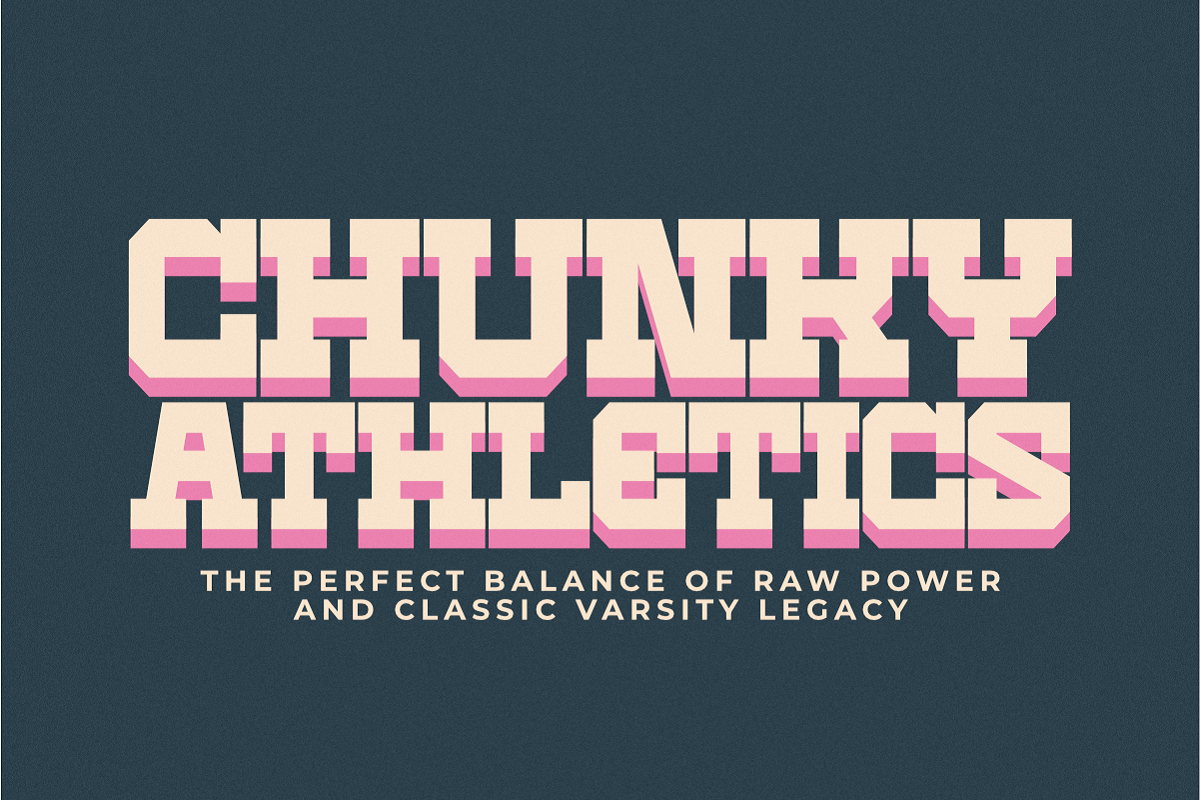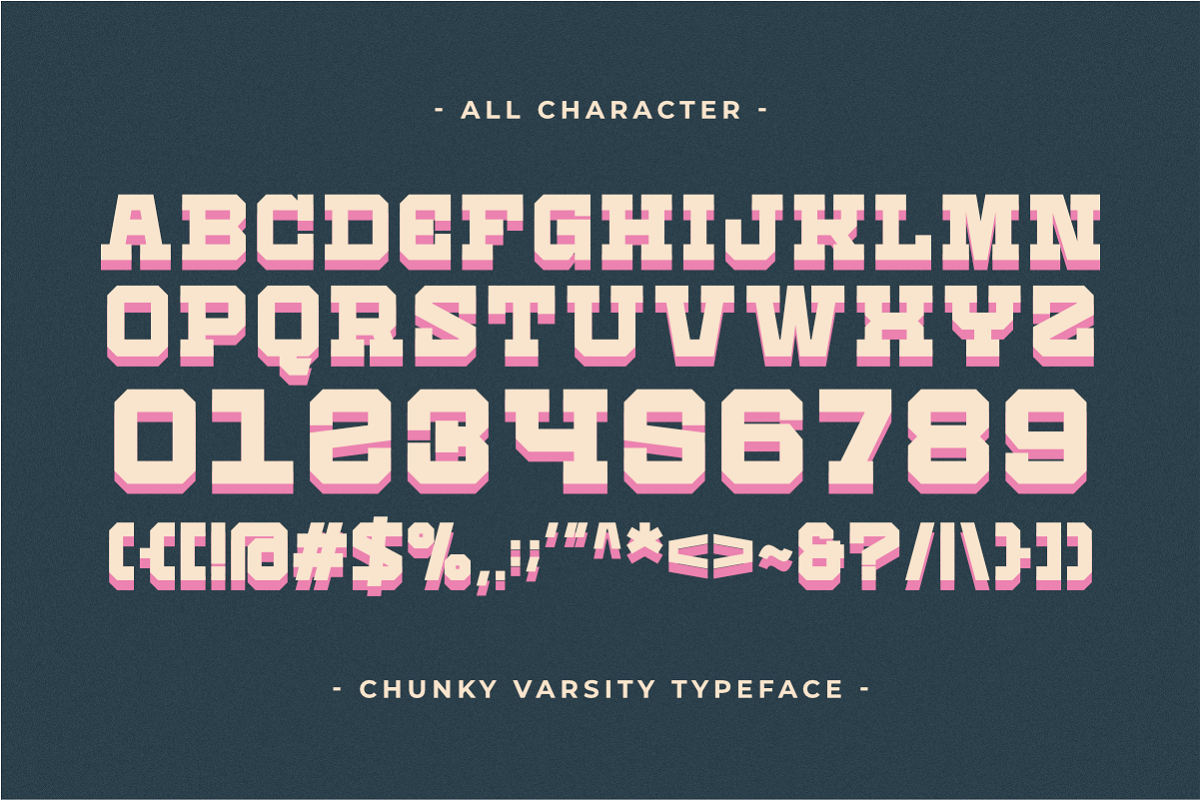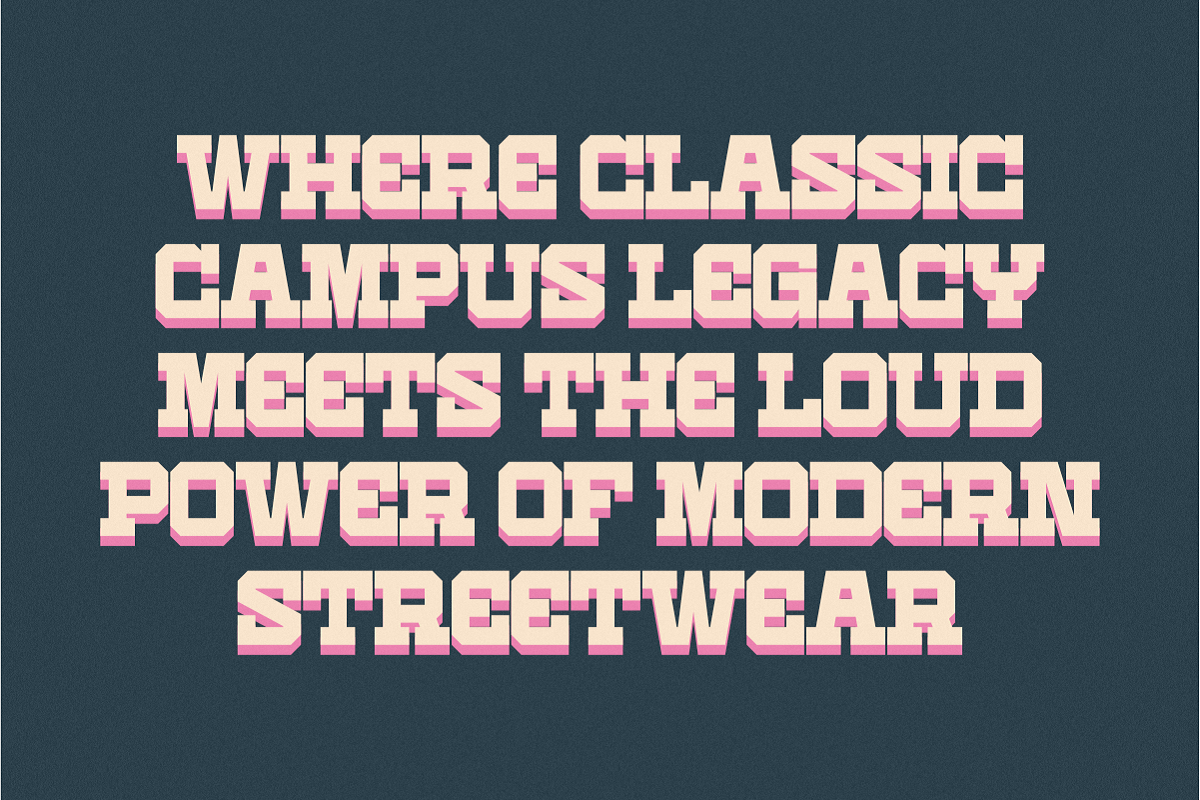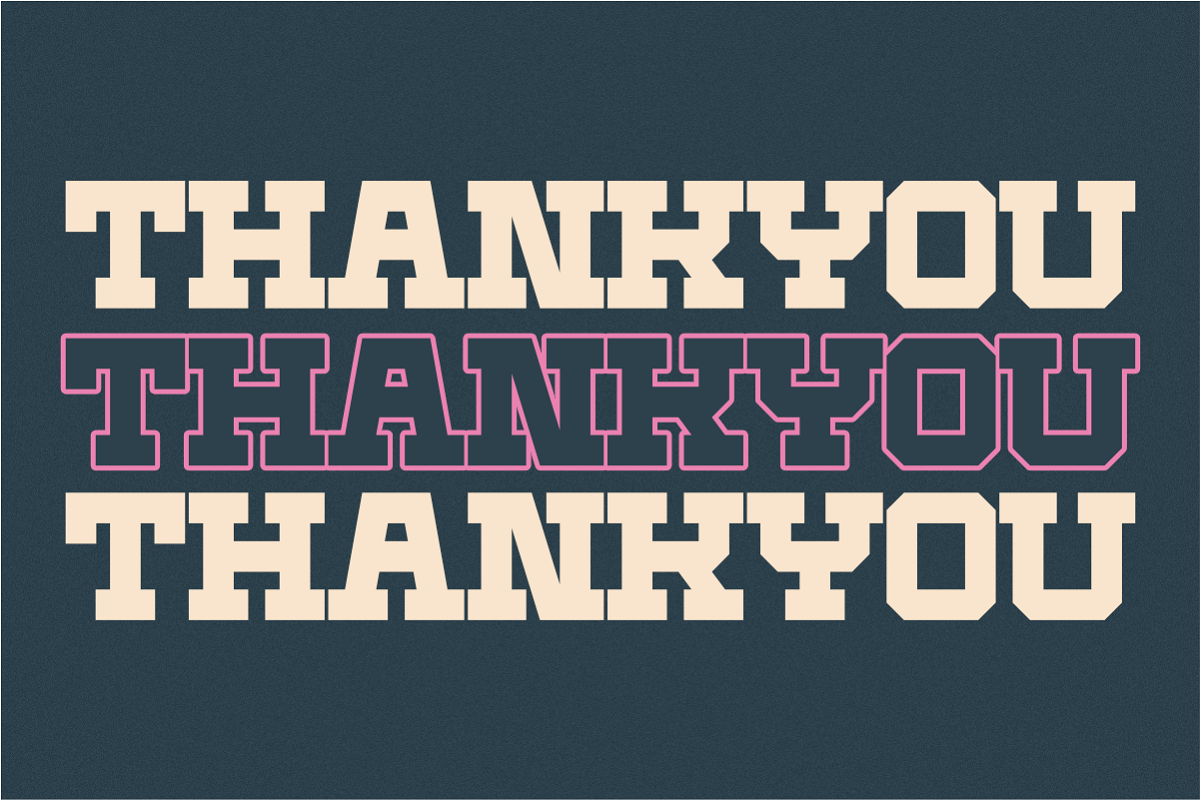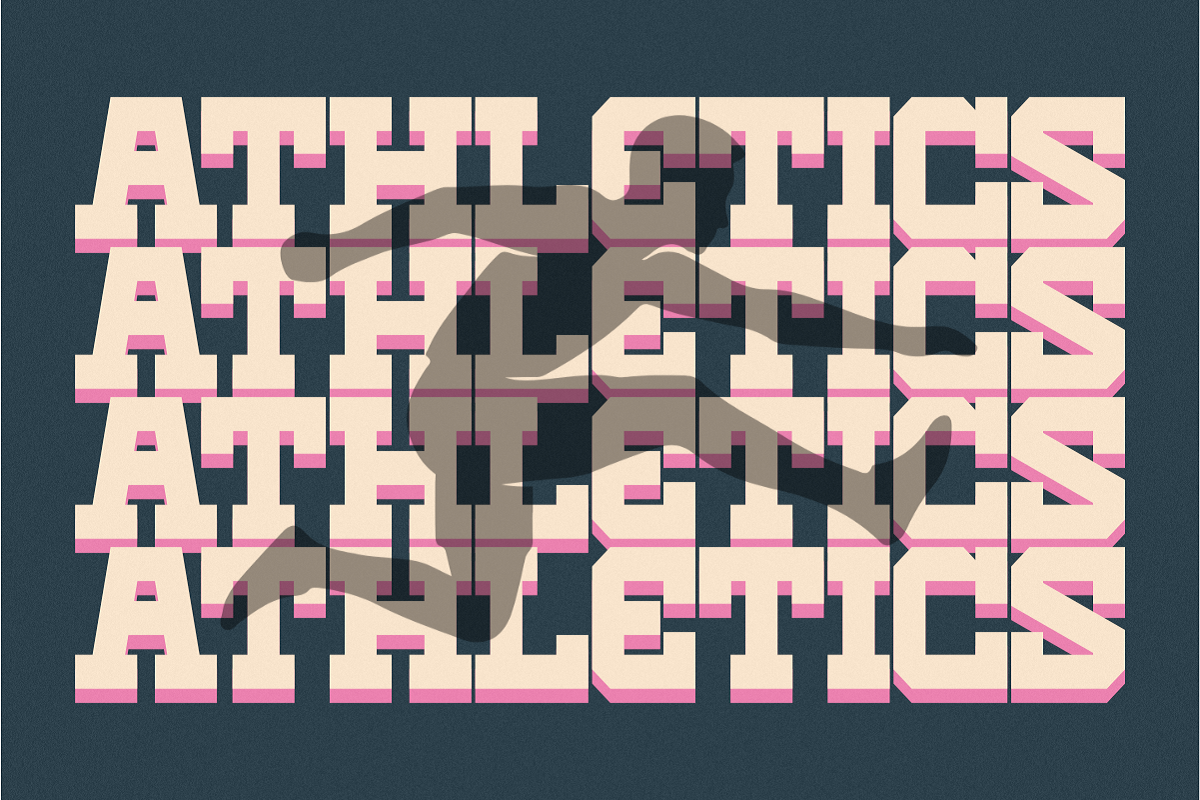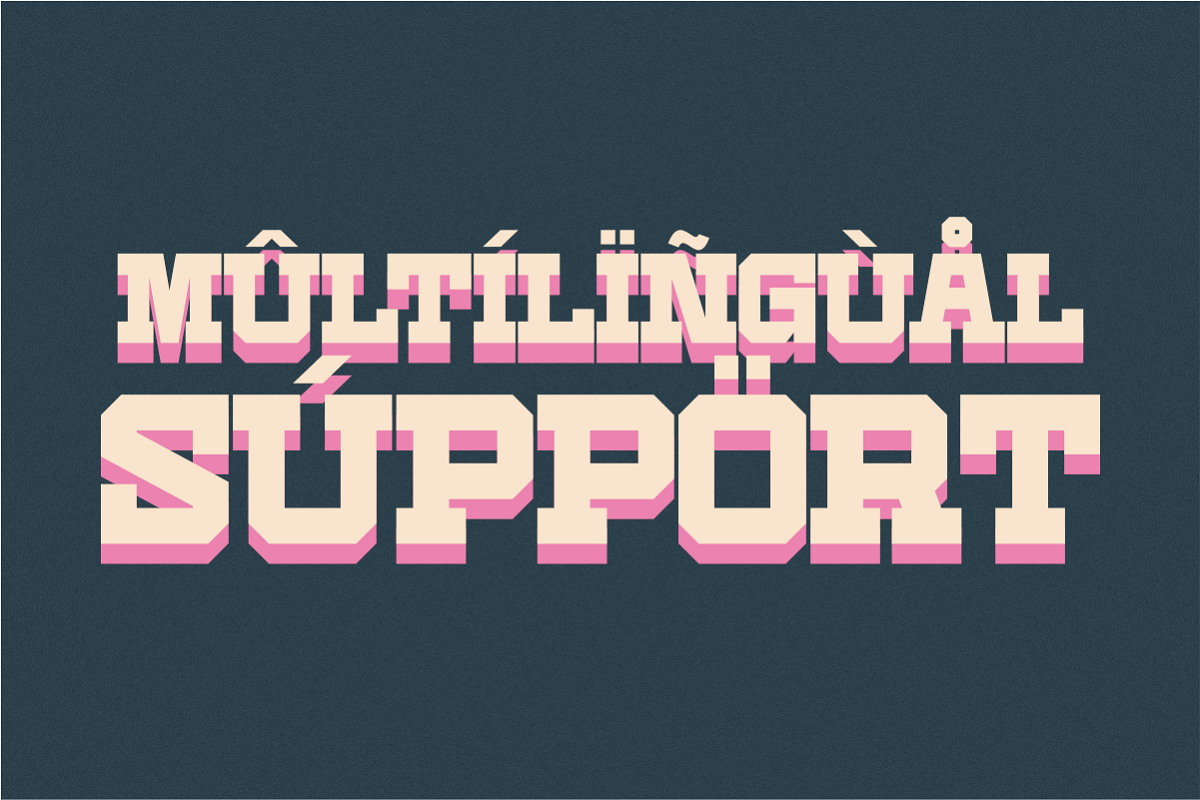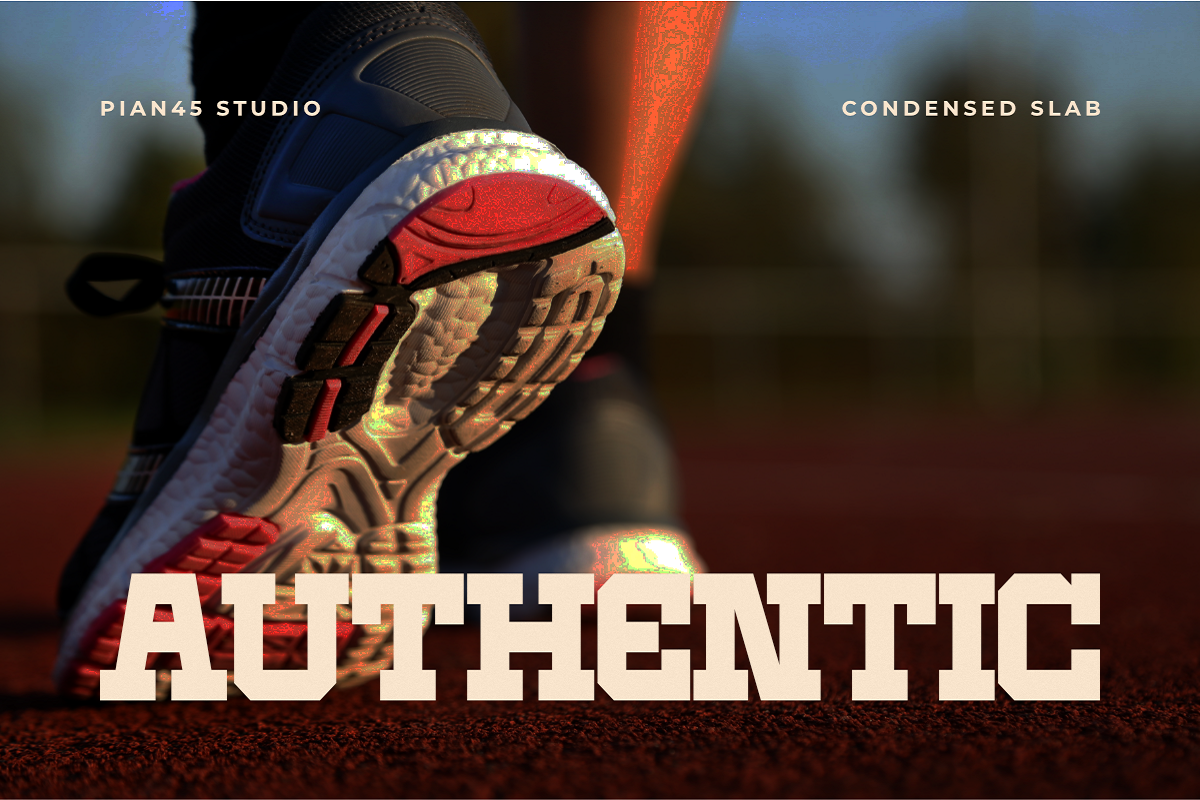
Chunky Varsity - Condensed Slab
Chunky Varsity is a powerful and high-impact Condensed Slab Serif font that masterfully combines a thick, heavy-weight layout with a clean athletic look. Featuring solid, bold block serifs and a tall, space-saving condensed typeface structure, this all-caps font is expertly engineered for sports branding, college varsity apparel, gym merchandise, and authentic team logos. Its commanding visual presence and geometric precision ensure your message stands out across high-visibility headlines, custom t-shirt designs, and modern fitness posters.